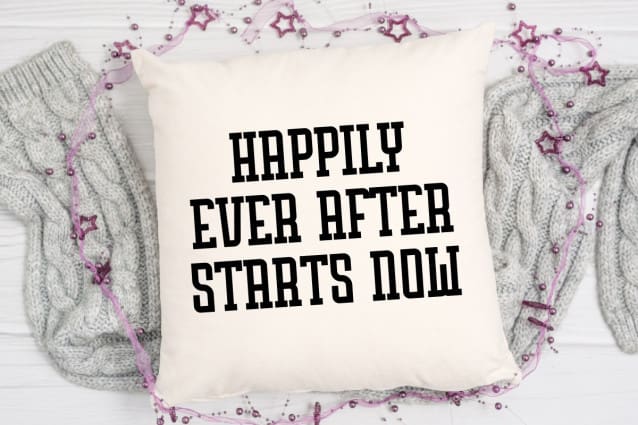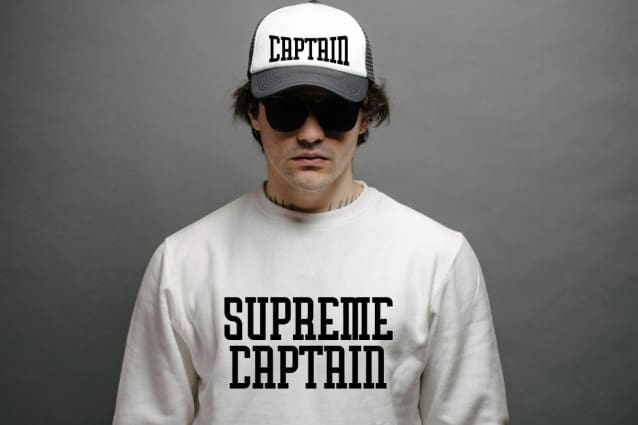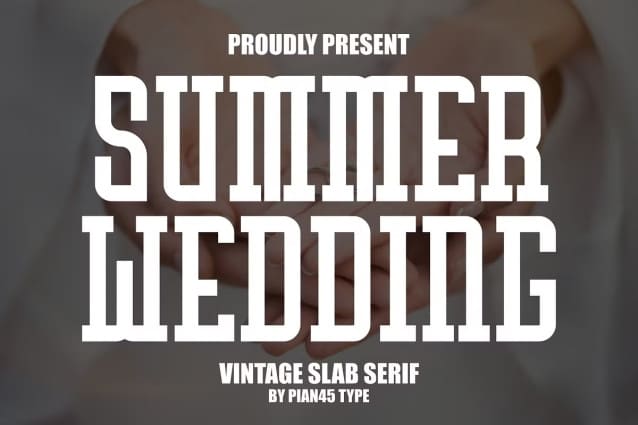
Summer Wedding Typeface
Summer Wedding Typeface is a luxurious and elegant modern vintage slab serif font. This font combines the charm of vintage aesthetics with contemporary elegance, making ideal for your creative projects. Perfect for quotes, posters, stylish backgrounds, greeting cards, invitations, t-shirt, mugs, tote bags and pillows.